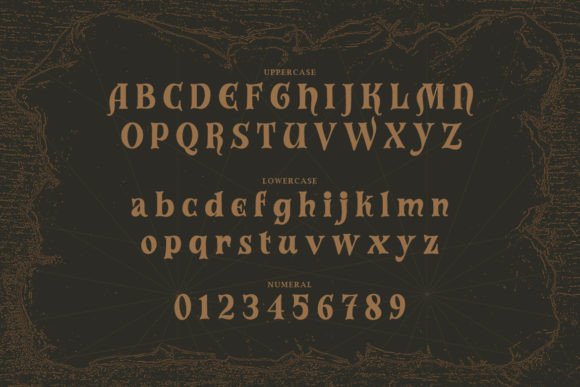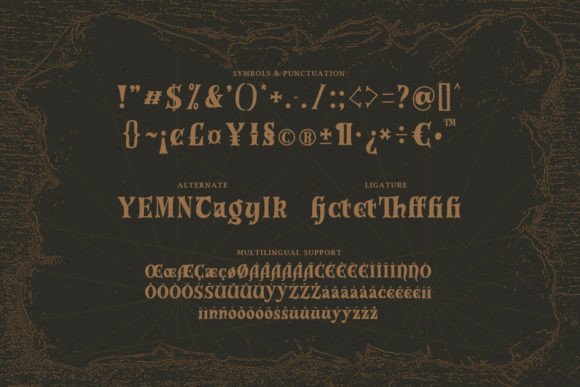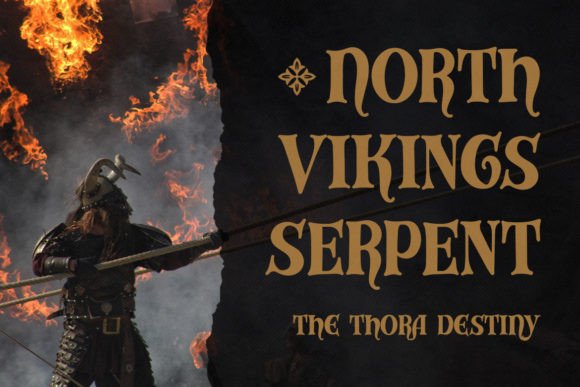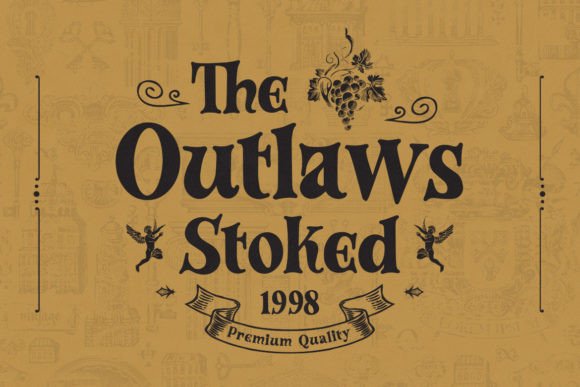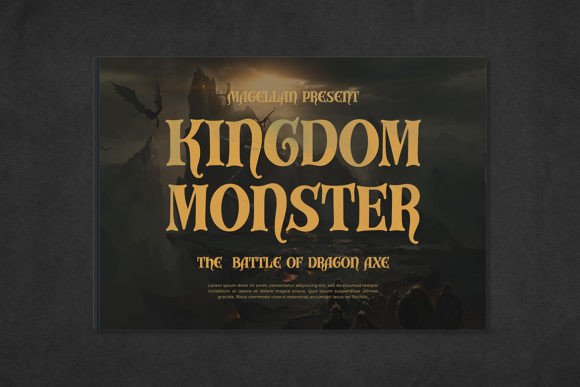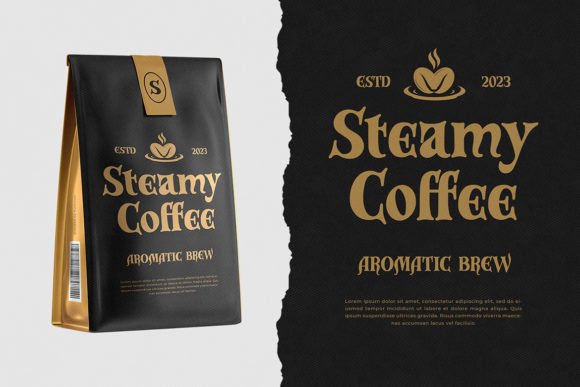
Introduction to Magellan Font
Embark on a swashbuckling adventure with “Magellan” – a pirates display typeface that brings the spirit of the high seas to your designs.
With its rugged and weathered letterforms, “Magellan” captures the essence of pirate lore and treasure hunting Each letter carries a sense of mystery and excitement, making it perfect for creating captivating headlines, signage, event posters, and more.